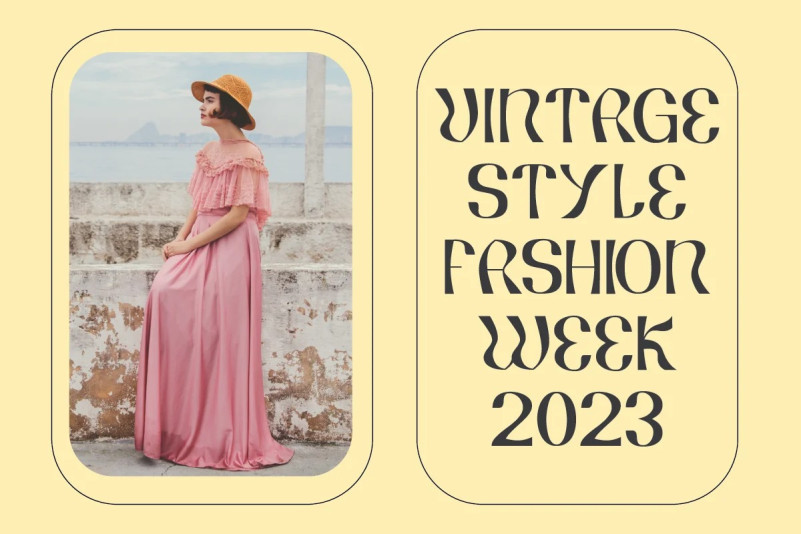
Koumon Font Family
Koumon Display Font is a quirky display sans serif that spells fun. With its psychedelic look, it would look perfect when paired with a conventional serif/sans serif. Koumon has 8 families font, starting from the small thin to the largest black. This typeface is versatile and can be used successfully in magazines, posters, branding, websites, etc.